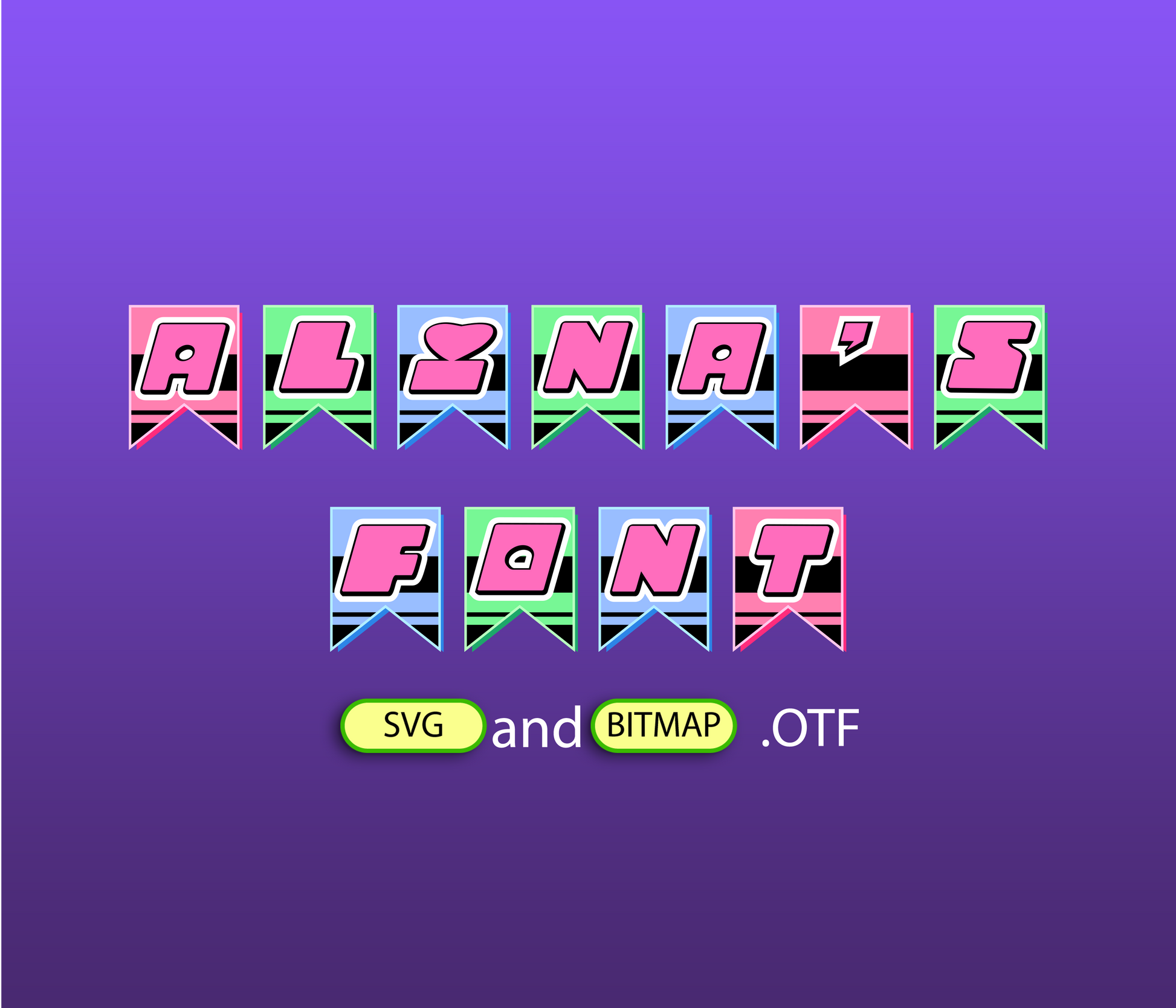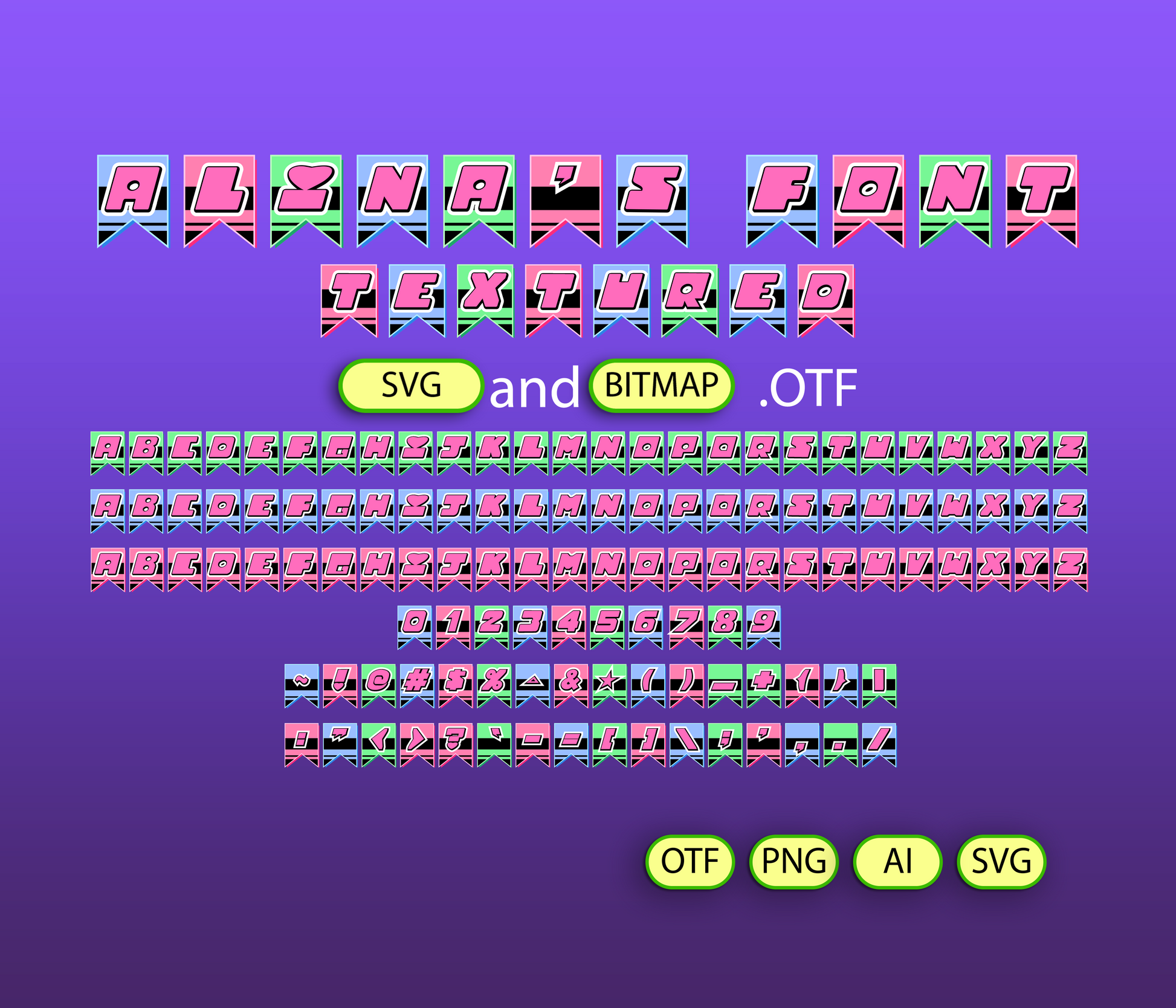
Super Girls Birthday Banner Font Textured
Celebrate in Style with the Super Girls Birthday Banner Font
Get ready to add some super-powered fun to your birthday celebrations with our Super Girls Birthday Banner-inspired font! Perfect for fans of the beloved animated trio, this font captures the bold and vibrant style of girls. Whether you're throwing a themed party for a young fan or want to infuse your creative projects with a touch of girl power, this font ensures your designs are as lively and impactful as the adventures of Town's miniature superheroes.
Our Super Girls Birthday Banner-inspired font not only celebrates the iconic animated trio but also brings a dose of their heroic charm to your celebrations and projects. With its bright style and versatile application, this font is perfect for anyone looking to add a pop of fun and energy to their designs, making every birthday and event extra special. So, ready your decorations and let's save the day with style and smiles!
Powerpuff Girls Banner Font